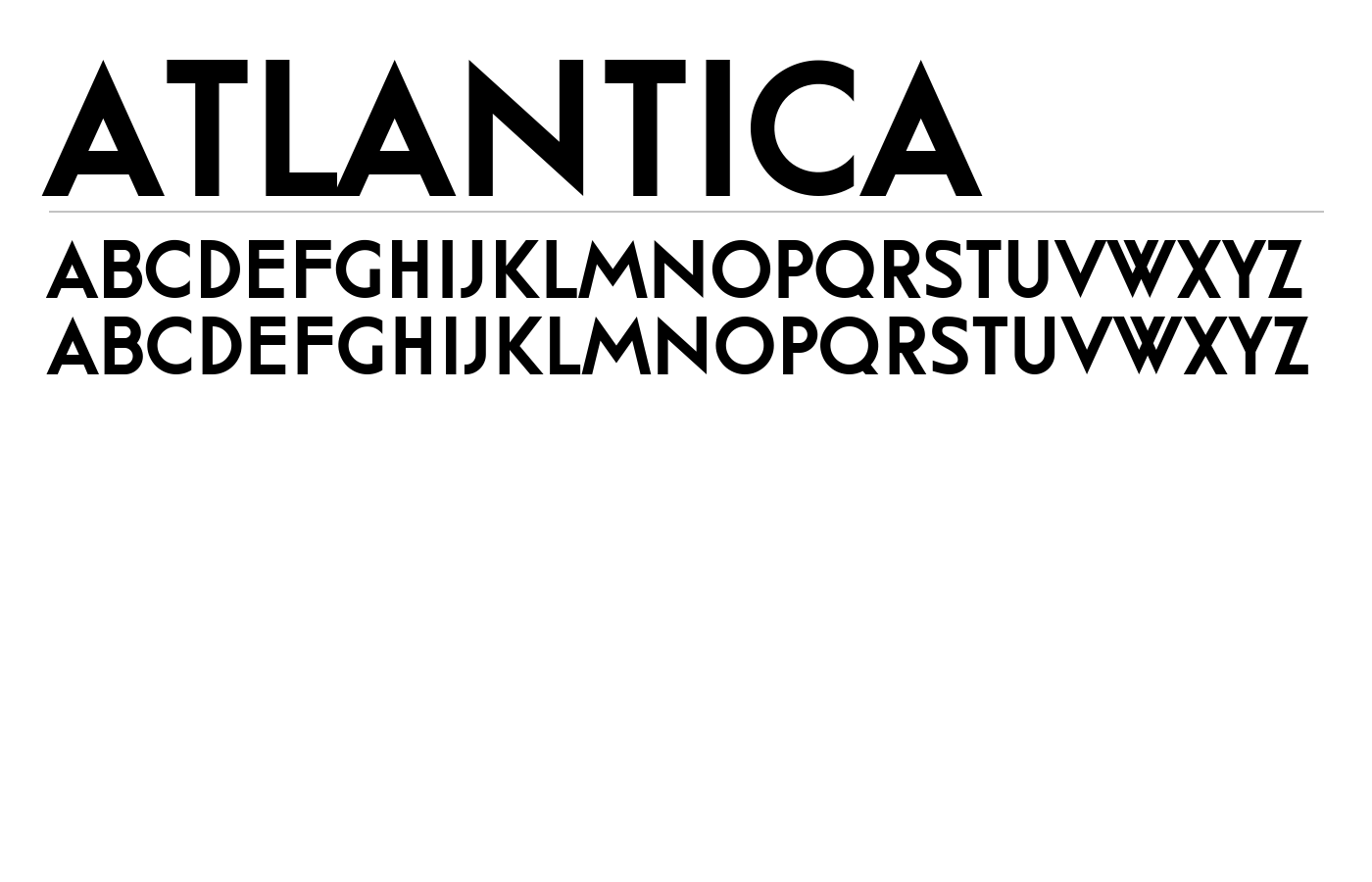
Atlantica is a bold, geometric sans serif font with a strong, modern presence. Its clean lines, high contrast between wide and narrow strokes, and sharp angles give it a dynamic, confident feel, making it ideal for striking headlines, logos, and branding projects that need a contemporary and impactful look. This font works well for designs seeking a sleek, professional, and stylish aesthetic.
Atlantica Font
About Atlantica Font